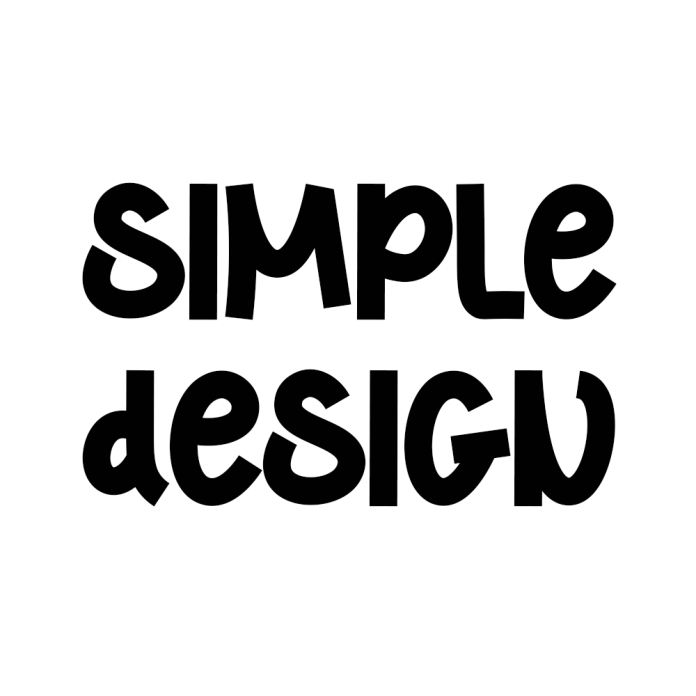
Simple Design Font is a sweet and friendly handwritten font. Fresh and casual, this font is ideal for writing wedding invitations, cards, or any other design that might need a lovely touch.